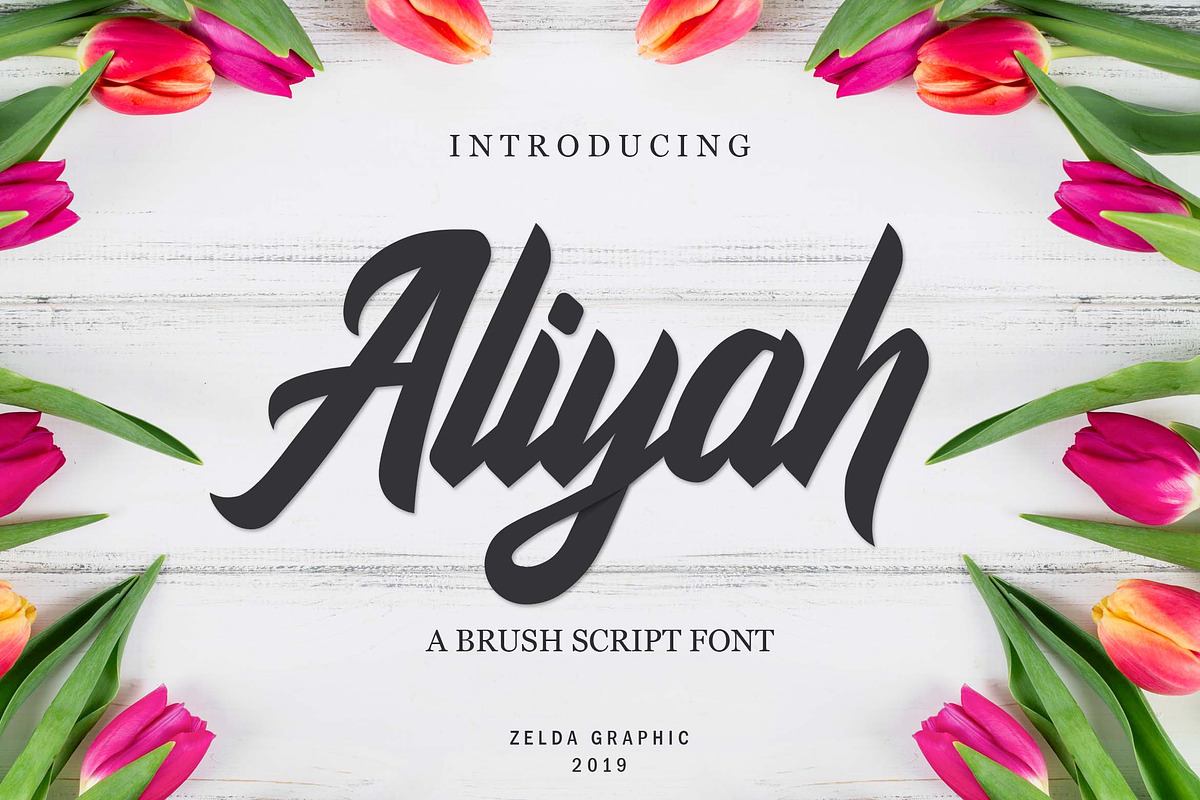
Aliyah script font Free Download
Aliyah Script Font Free Download
Please note, you must purchase this font for commercial use. However, you can easily download Aliyah Script Font Free Download for personal use and testing purposes. Aliyah Script Font is an elegant and flowing handwritten script typeface that exudes sophistication and charm. Perfect for a variety of projects such as invitations, branding, logos, and social media graphics, this font features smooth, fluid letterforms that give your design a personal, artistic touch. Whether you're designing for a wedding, a luxury brand, or a creative event, Aliyah Script Font Free Download will add a graceful and stylish element to your typography. Download Aliyah Script Font Free Download today and explore its potential before opting for a commercial license.